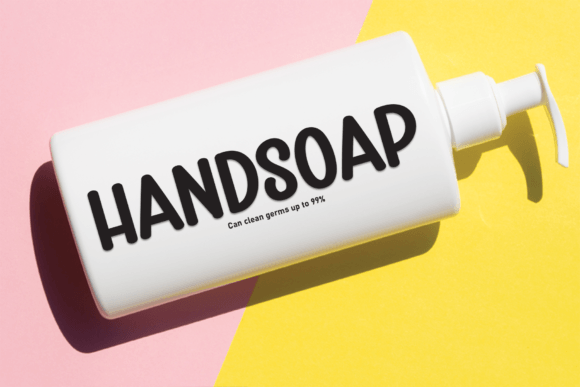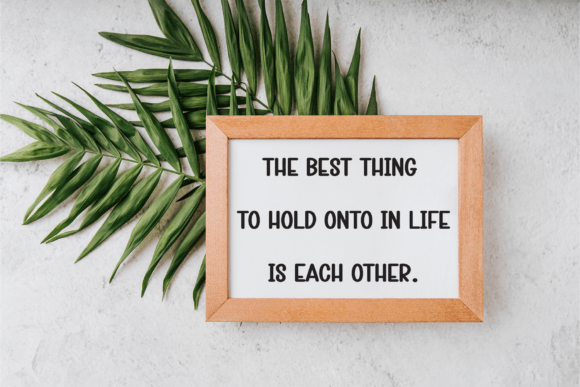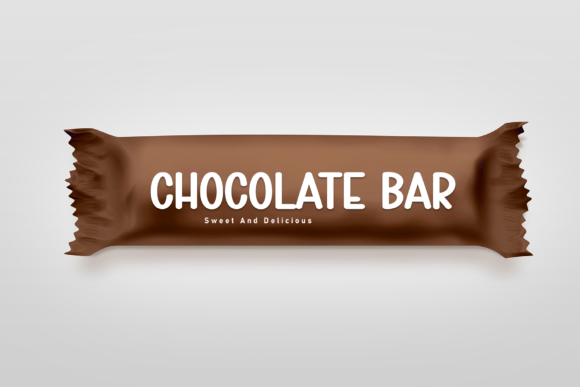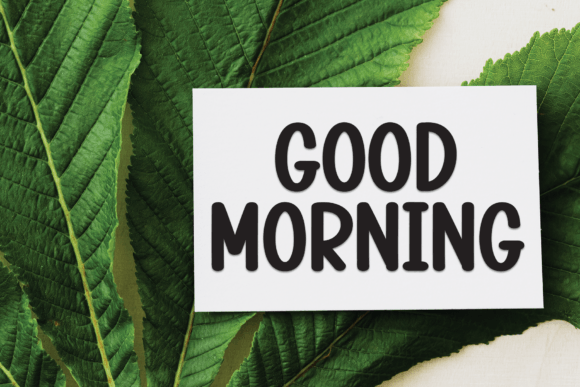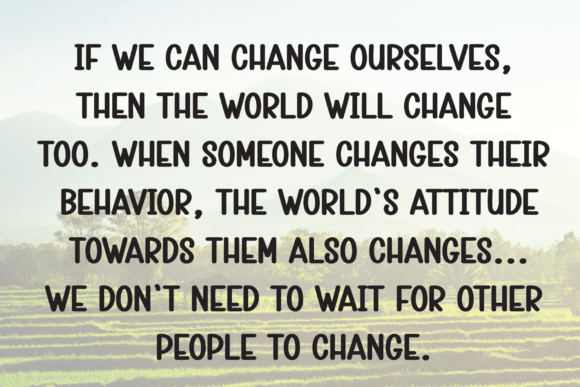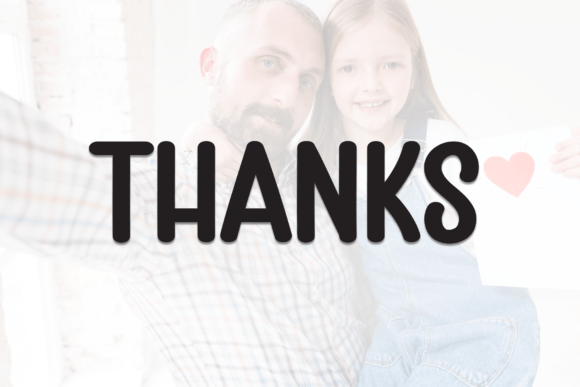
Introduction to I Love Father Font Font
Fonts play a crucial role in design, and the I Love Father Font font is a typeface that brings both character and versatility to any project. Whether you’re working on a branding project, a website, or a print design, the I Love Father Font font offers a unique style that can elevate your work.
I Love Father is a sweet and friendly handwritten font.
Key Features of I Love Father Font Font
Why Choose I Love Father Font Font?
The I Love Father Font font is more than just a typeface – it’s a design tool that helps you communicate your message with style and clarity. Its unique character set and versatile design make it suitable for a wide range of applications, from elegant invitations to bold headlines.
With its carefully crafted letterforms and balanced proportions, the I Love Father Font font ensures readability and visual appeal across all mediums.
What makes I Love Father Font font special?
The I Love Father Font font stands out with its unique design, exceptional readability, and versatility across various design applications.